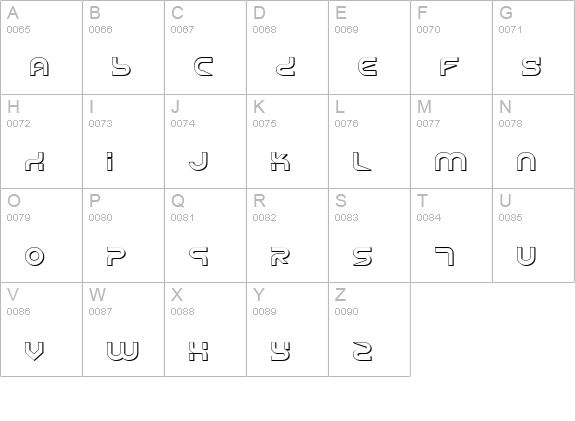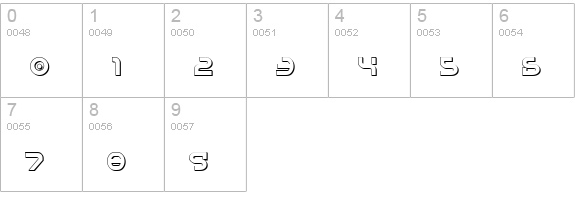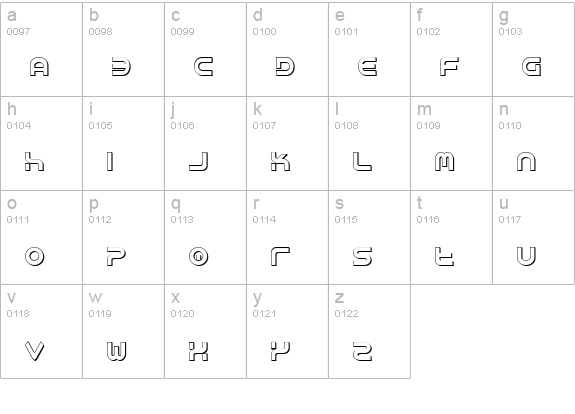
Introducing Yukon Tech Shadow font - a sleek and modern typeface that exudes sophistication and style. With its clean lines and unique shadow effect, this font is perfect for adding a touch of elegance to any project. Whether you're designing a logo, creating a poster, or crafting a website, Yukon Tech Shadow font is sure to make a statement. And the best part? Yukon Tech Shadow font is available for free download at FontsMarket.com! You can easily access this premium font without any cost, making it a fantastic choice for both personal and commercial use. Don't miss out on the opportunity to enhance your designs with this eye-catching and versatile font. Download Yukon Tech Shadow font today and take your projects to the next level.